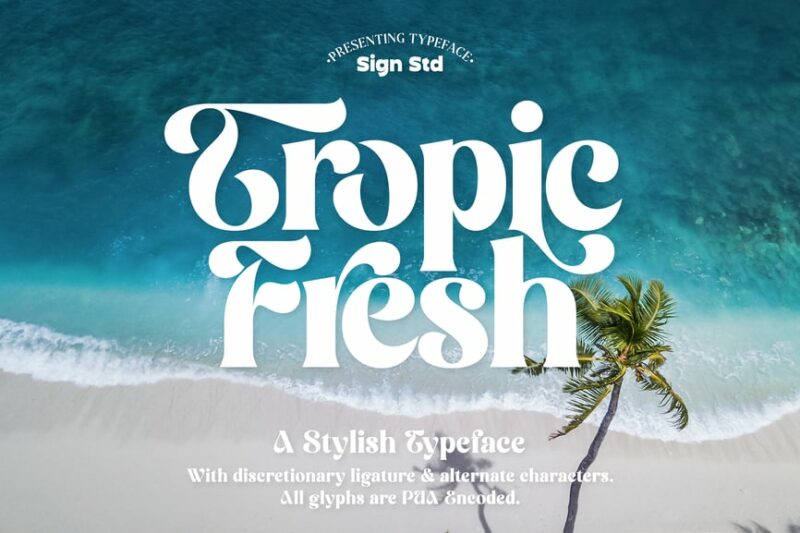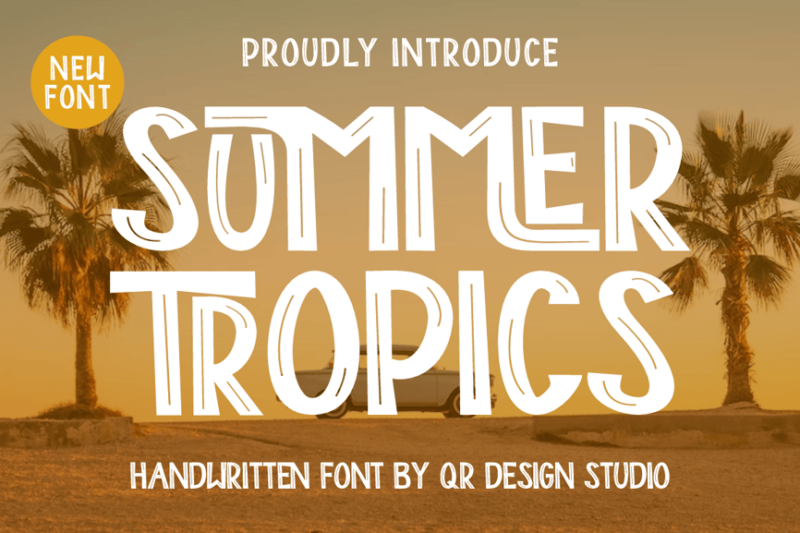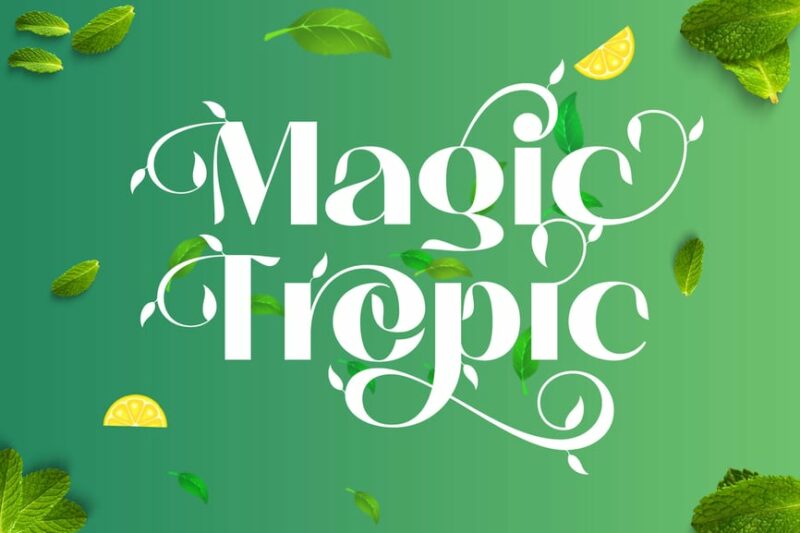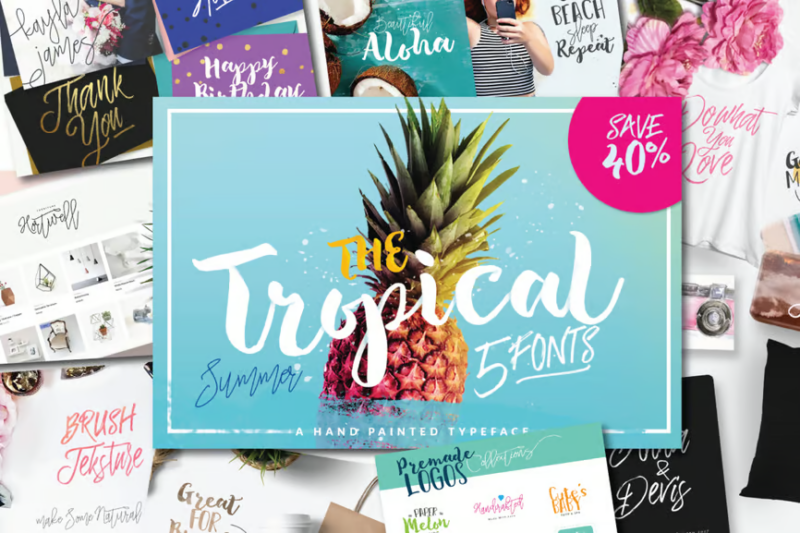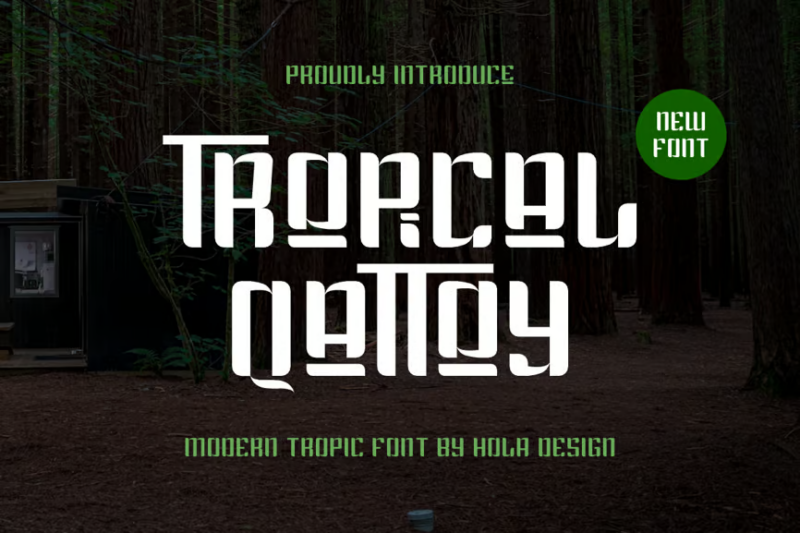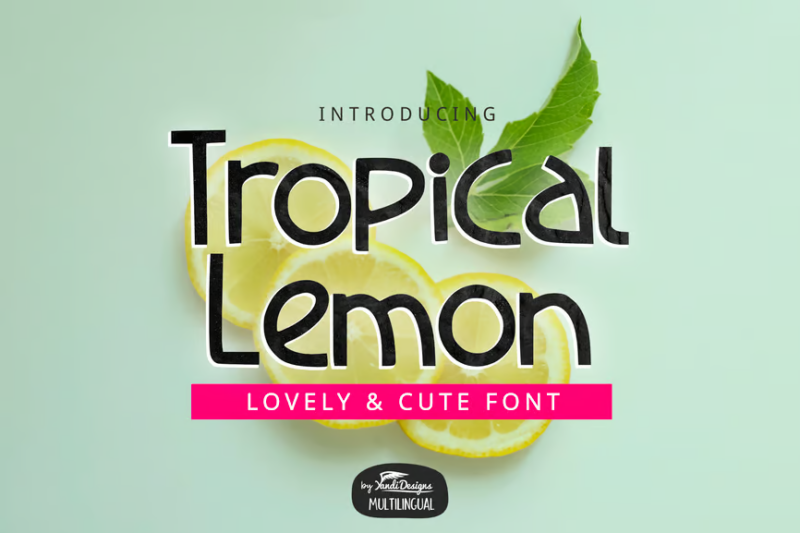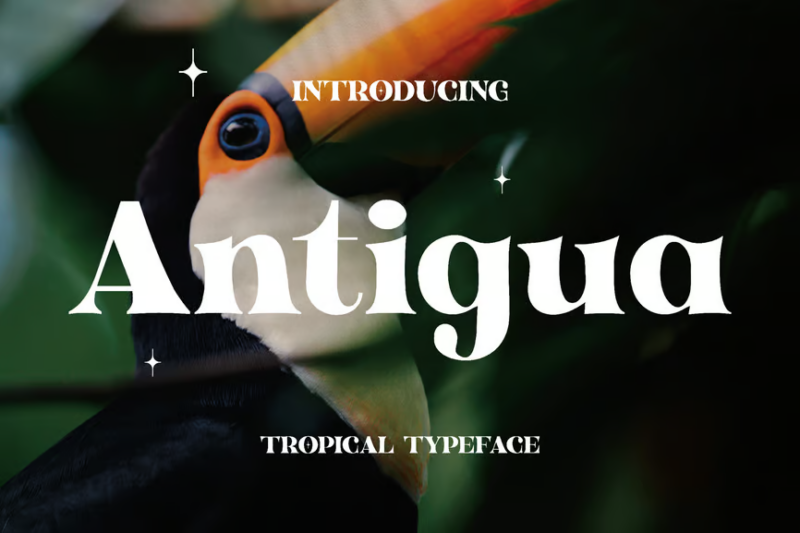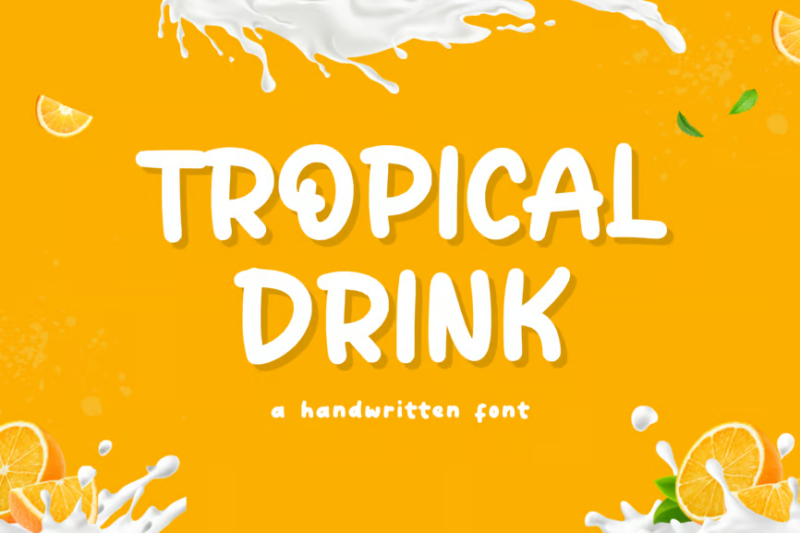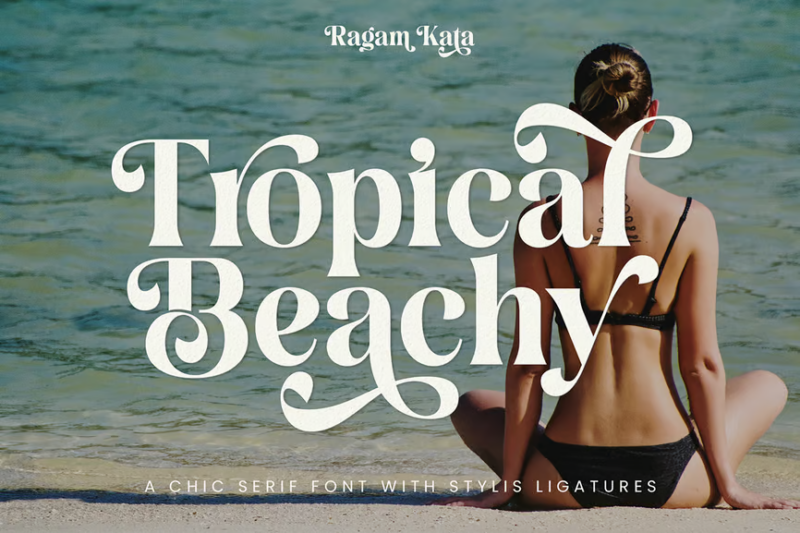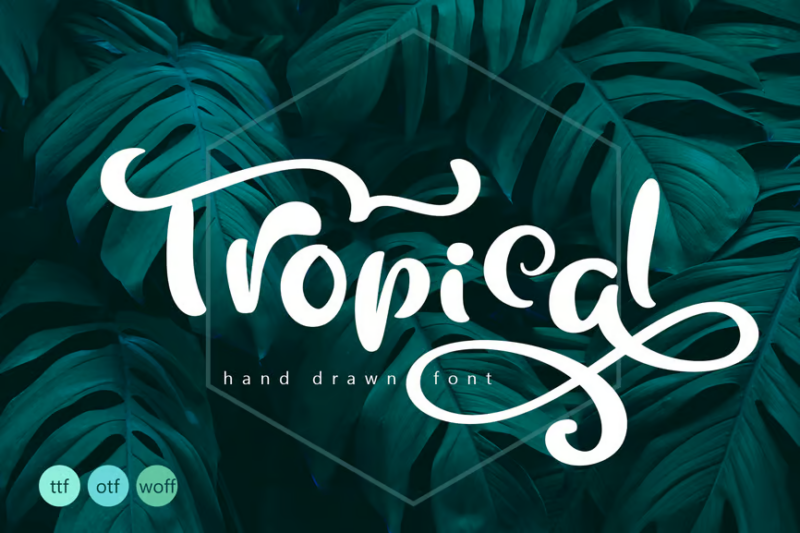
The right tropical font can transport your audience straight to paradise. Whether you’re designing for a resort, creating wedding invitations for a destination ceremony, or just wanting to add some island vibes to your next project, tropical fonts have this magical ability to evoke feelings of warm ocean breezes and swaying palm trees.
In this comprehensive guide, we’ll explore the best tropical fonts that are making waves in 2026, understand what makes a font feel “tropical,” and learn how to use these typefaces effectively in your designs. Plus, I’ll share some expert tips on pairing these fonts for maximum impact.
The Most Paradise-Perfect Tropical Fonts We’re Loving RN
Tropic Fresh
Tropic Fresh is a serif font that features elegant ligatures and classic serifs. It combines tropical flair with refined typography, making it perfect for luxury resort branding or high-end beach-themed designs.
Summer Tropics
Summer Tropics is a playful script font with a chunky, fun style. Its bold strokes and casual appearance make it ideal for beach party invitations, summer event posters, or children’s tropical-themed products.
Magic Tropic
Magic Tropic is a decorative font that embodies the essence of tropical allure. Its unique letterforms evoke images of exotic flora, making it perfect for creating eye-catching headlines in travel magazines or tropical-themed packaging designs.
The Tropical Font Set
The Tropical Font Set is a brush script font with beautiful swashes. Its fluid, hand-painted style brings a sense of relaxed elegance to designs, ideal for beach wedding invitations or high-end resort branding materials.
Tropical Qattoy – Sans Serif & Modern Tropic
Tropical Qattoy is a modern sans-serif typeface with a tropical twist. Its clean lines and contemporary feel make it versatile for both body text and headlines in travel brochures, lifestyle magazines, or eco-friendly product packaging.
Tropical Lemon Font
Tropical Lemon Font is a refreshing blend of sans-serif and script styles. Its clean, tropical aesthetic with a hint of handwritten charm makes it perfect for summer event posters, beachwear branding, or fresh juice packaging designs.
Antigua – Tropical Display
Antigua is a tropical display font that combines serif and decorative elements. Its design evokes the spirit of Hawaii and Bali, making it ideal for luxury resort logos, travel agency materials, or exotic destination branding.
Tropical Drink – Playful Font
Tropical Drink is a playful, handwritten script font. Its fun and carefree style is perfect for beach bar menus, summer cocktail promotions, or children’s tropical-themed party invitations.
Tropical Beachy – Beautiful Font
Tropical Beachy is a beautiful beachy font with decorative elements. Its elegant yet relaxed style makes it suitable for upscale beach resort branding, tropical wedding stationery, or high-end swimwear packaging.
Tropical Summer Font
Tropical Summer Font is a decorative script that captures the essence of tropical vacations. Its playful and ornate design is perfect for creating eye-catching headlines in travel brochures, summer event posters, or beachwear branding.
Tropical Paradise Retro Display Font
Tropical Paradise is a retro-inspired serif display font. Its classic style with a tropical twist makes it ideal for vintage-themed beach resorts, tiki bar signage, or retro surf shop branding.
Tropical Tides Vintage Label Font
Tropical Tides is a vintage-style serif font designed for labels. Its nostalgic appeal combined with tropical elements makes it perfect for craft rum labels, vintage-inspired beach wear tags, or retro tropical destination posters.
Beach Boy – Tropical Sans Font
Beach Boy is a tropical sans-serif font with a handwritten feel. Its casual, beachy vibe makes it ideal for surf shop branding, casual beachwear labels, or laid-back beach cafe menus.
Tropical Times – Handwritten Bold Font
Tropical Times is a bold, handwritten font with an original flair. Its strong presence and casual style make it perfect for summer festival posters, beach party invitations, or tropical-themed product packaging.
Tropical Food Truck Font
Tropical Food Truck Font combines marker and brush styles for a unique handwritten look. Its casual, street-food vibe is perfect for food truck branding, beach snack bar menus, or casual tropical event flyers.
Tropical Vibes – Display Retro Font
Tropical Vibes is a retro-inspired decorative font with an original twist. Its funky, vintage feel makes it ideal for creating eye-catching headlines in retro travel posters, tiki bar signage, or vintage surf competitions.
Remember, the key to success with tropical fonts lies in thoughtful application and understanding their unique characteristics. When used well, they can transform any design into a little slice of paradise.